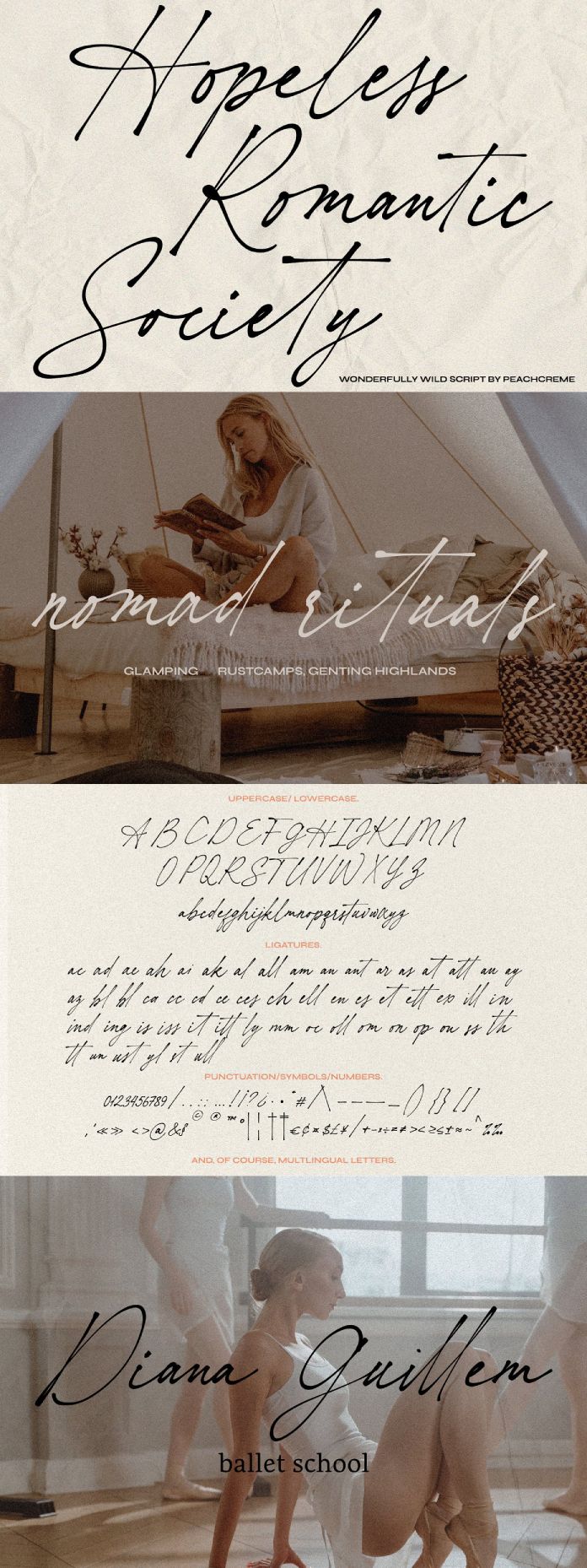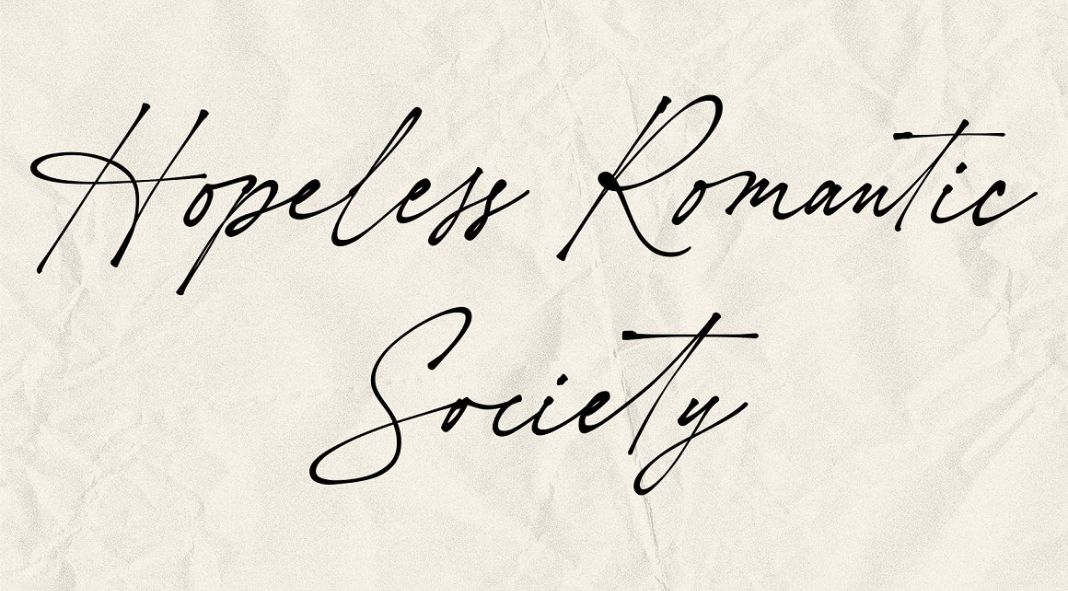
Are you looking for a natural handwritten script font? The Hopeless Romantic Society typeface might be exactly what you need.
If you’re seeking a handwritten font with its own unique charm, look no further than “Hopeless Romantic Society”! This carefree typeface by PeachCreme was influenced by the messily written letters of the past. Inject your designs with an extra dose of authenticity using any one of the 55 available ligatures! From designing lovable logos to crafting heartfelt cards, this typeface is sure to bring something special to each and every project.